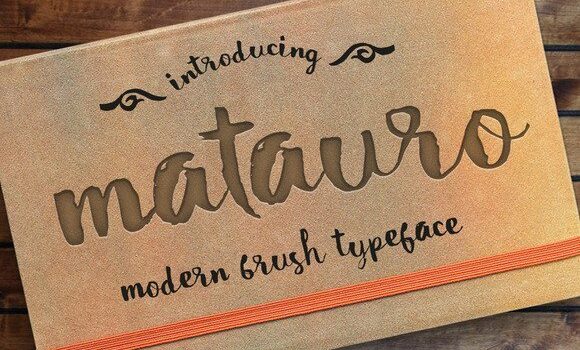
Matauro Font – Free Download Introduction to Matauro Font A stunning modern brush font. 📸 Preview Gallery 3 images 📌 Product Name Matauro Font 👤 Author Incools Design Studio 📂 Category Explore ⬇️ Download Matauro Font FREE Free Download •